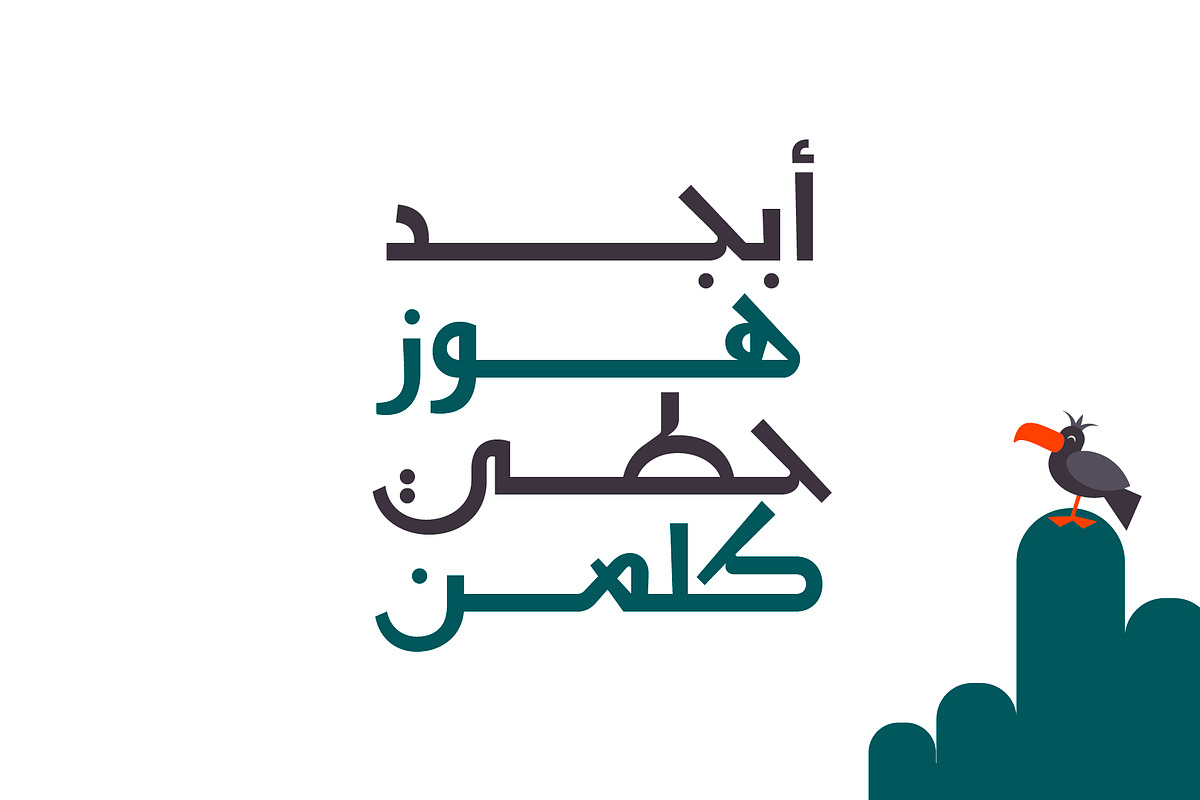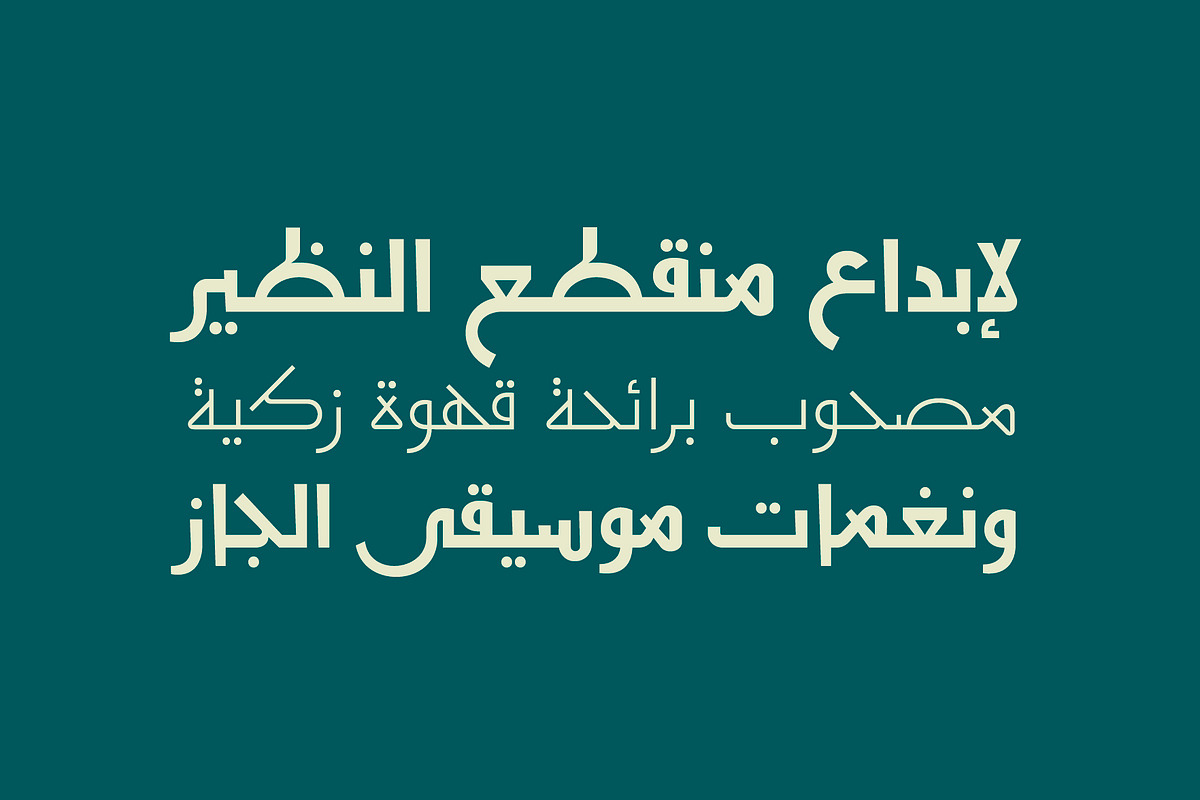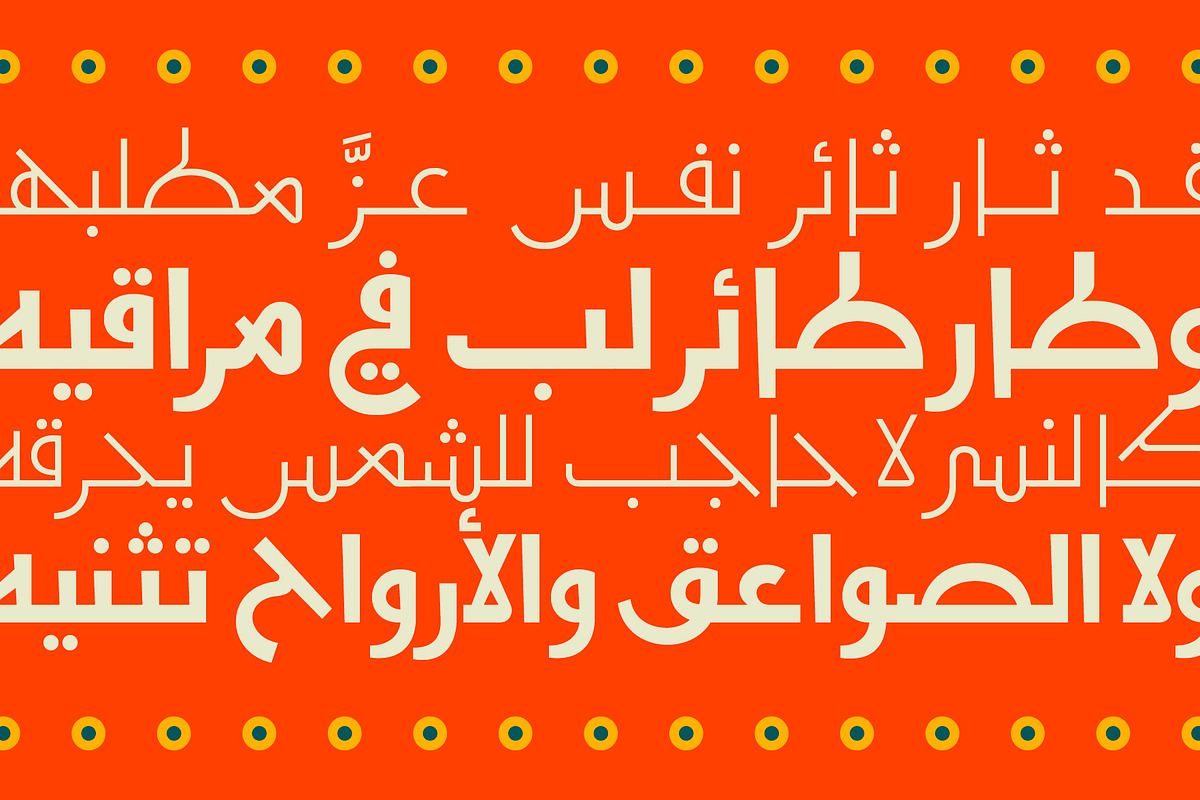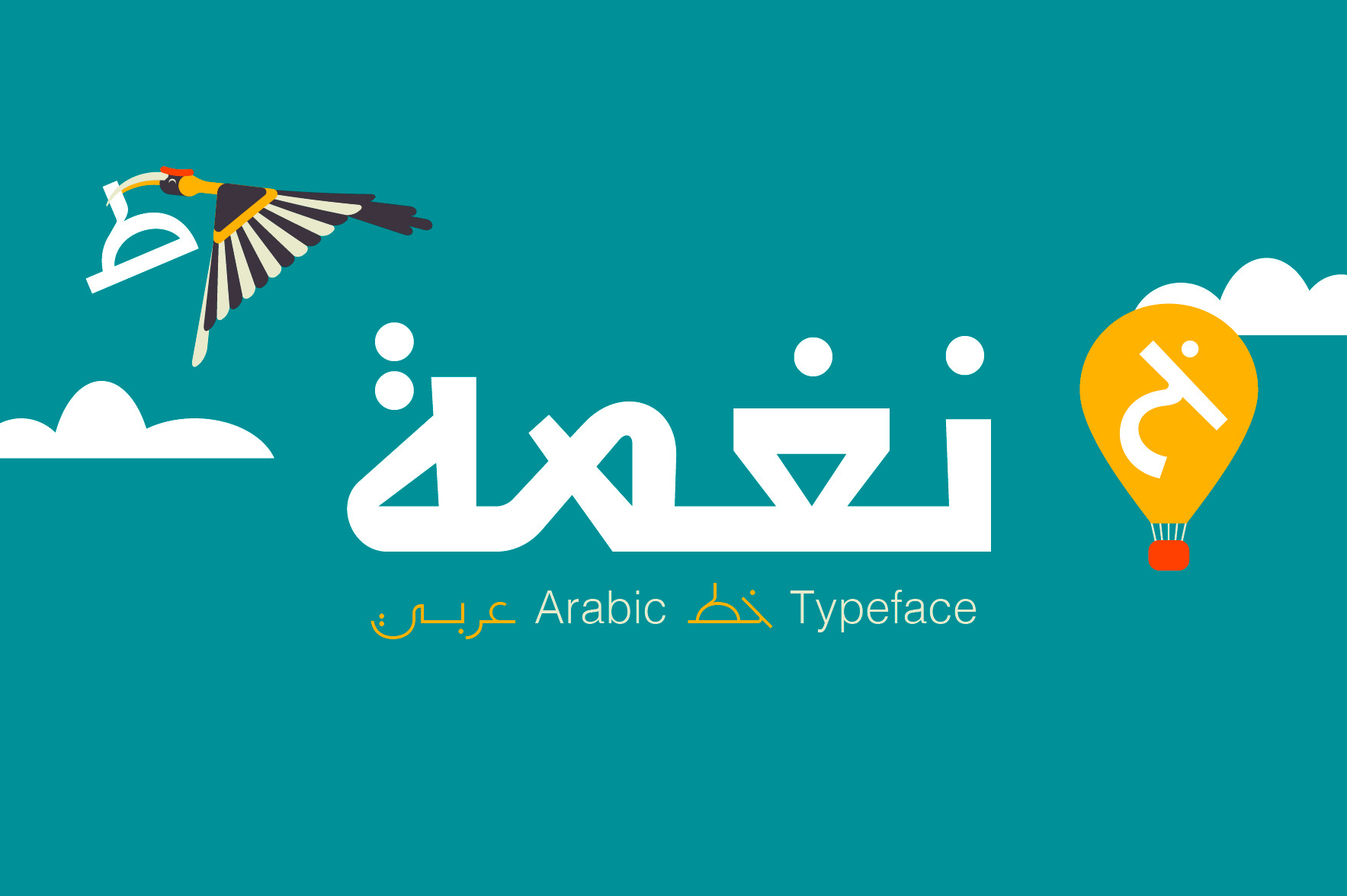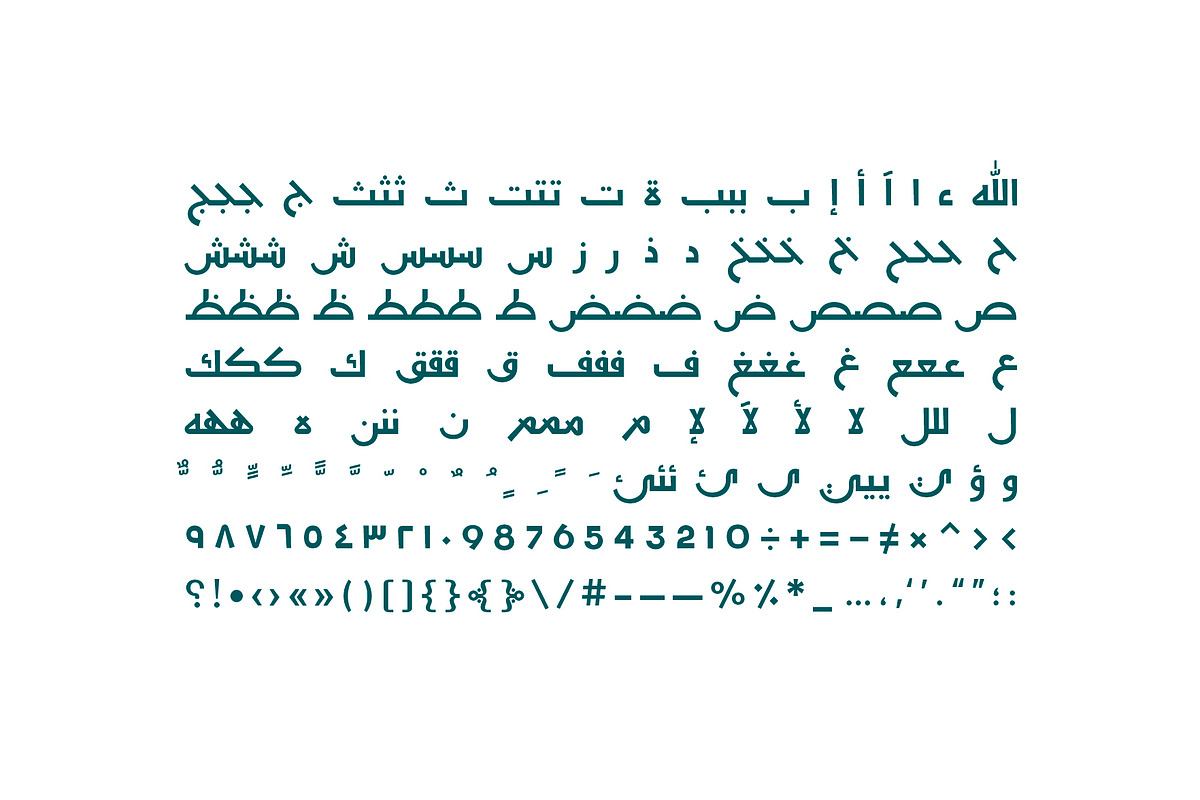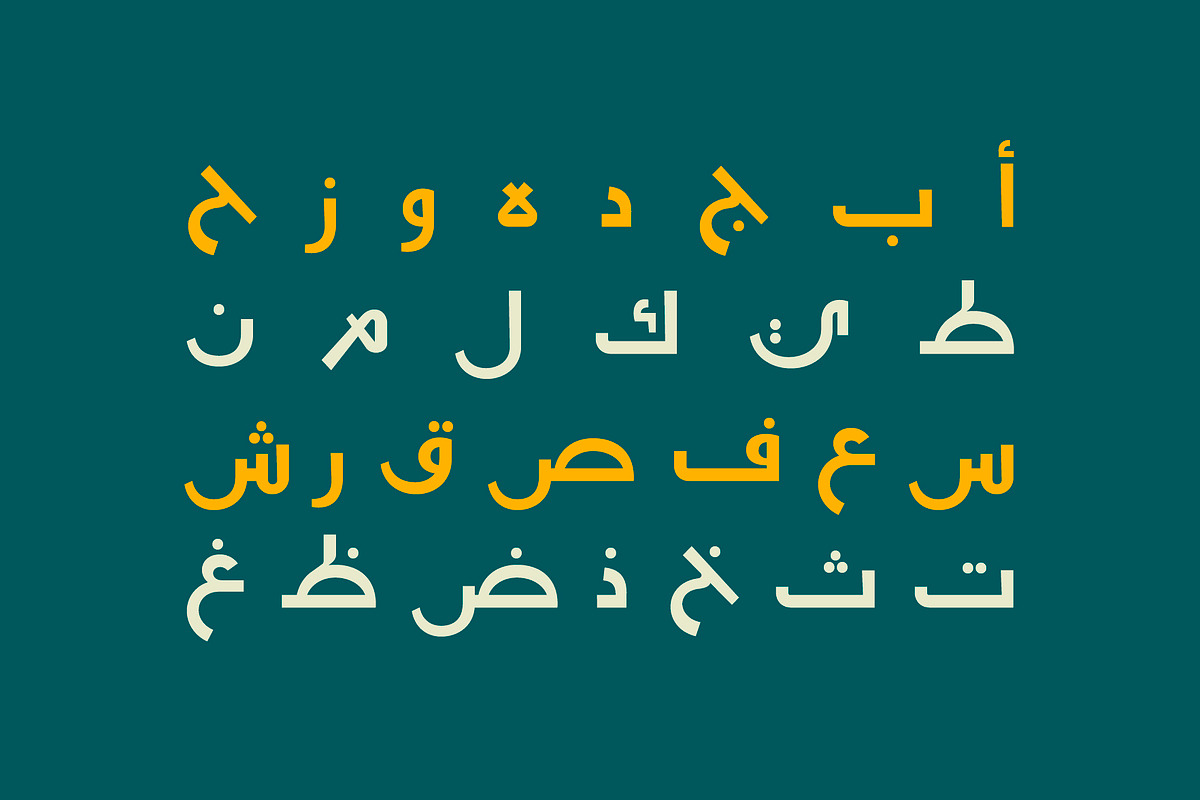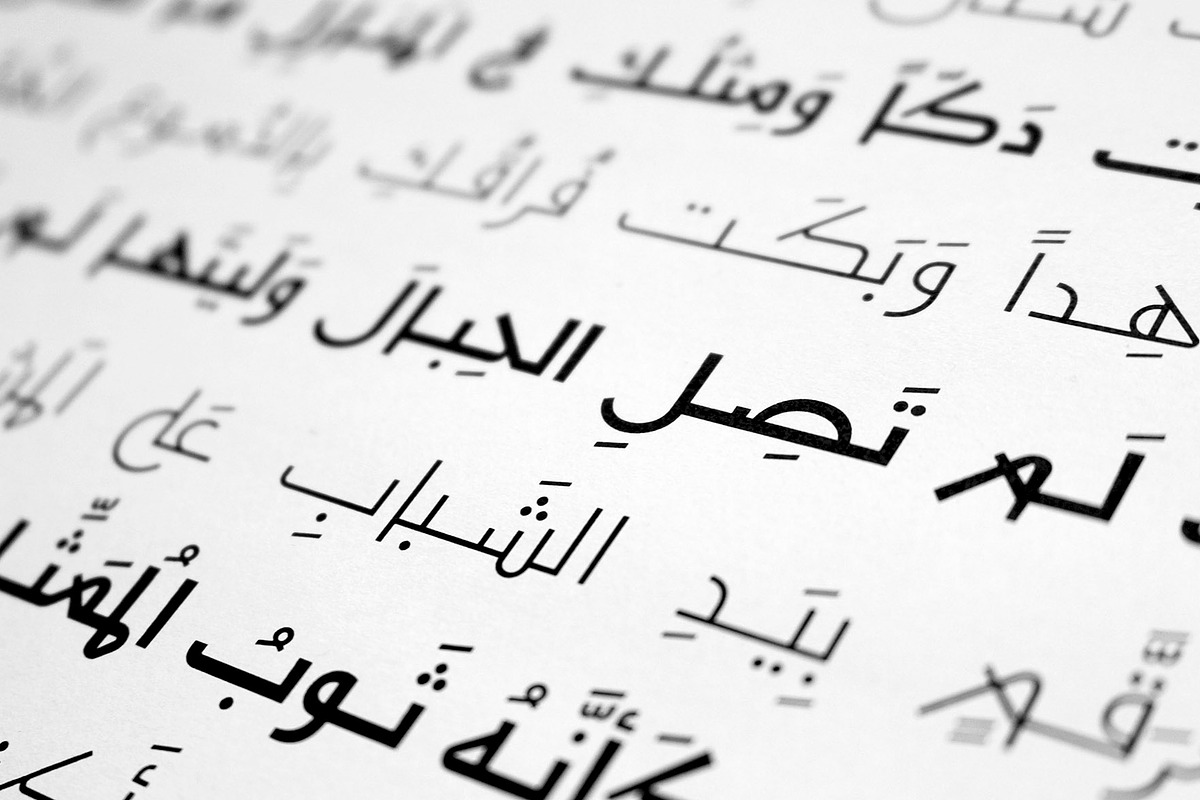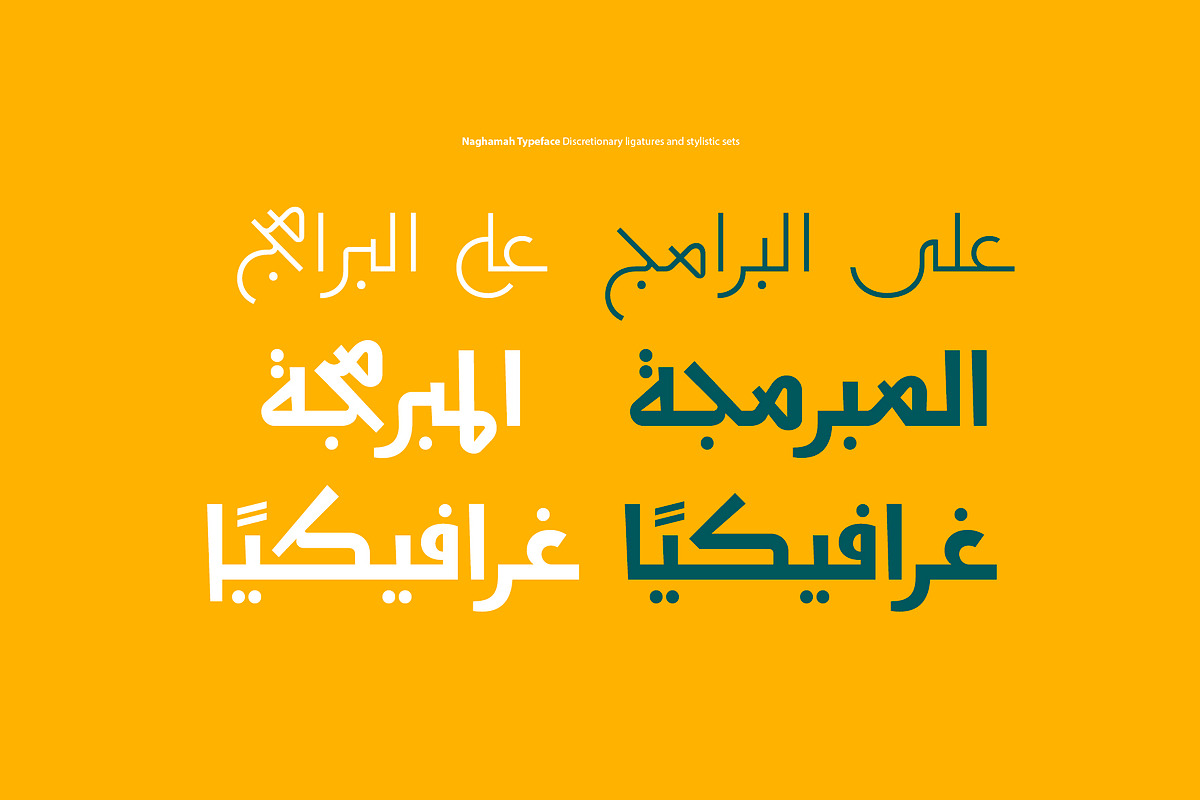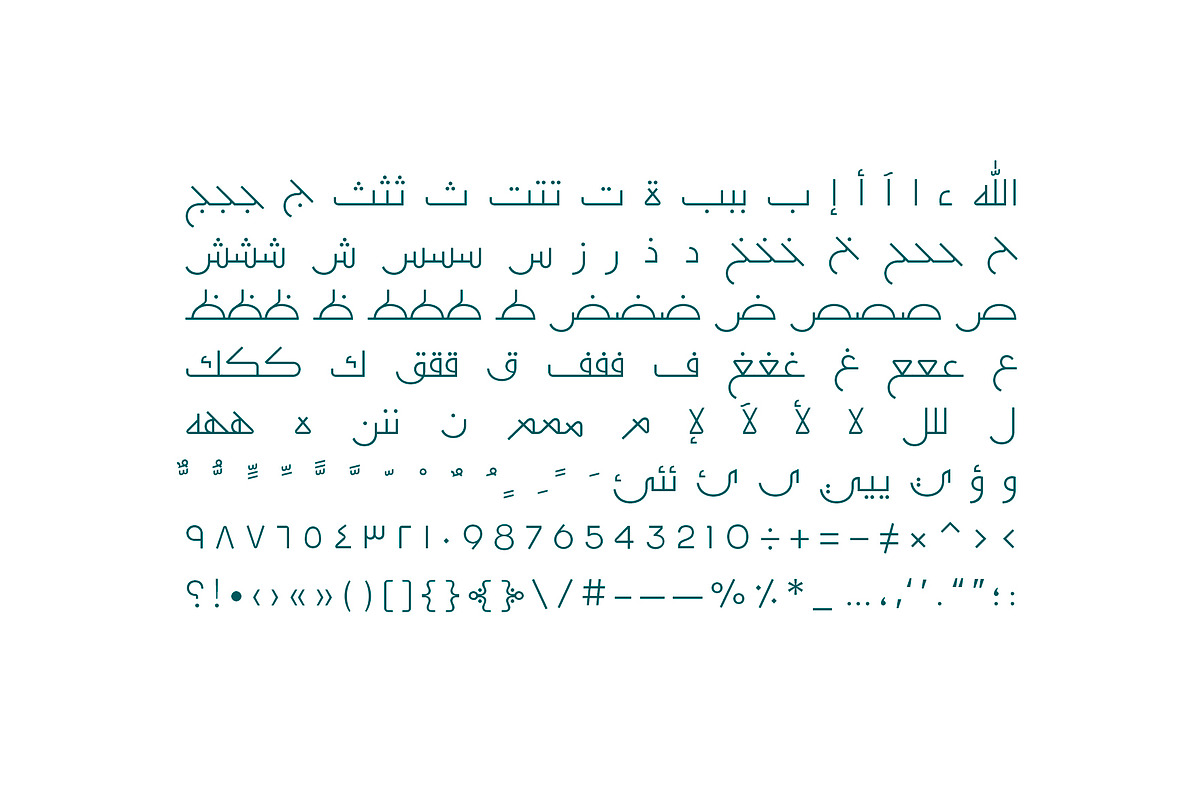
Naghamah – Arabic Typeface
Naghamah, which is the Arabic word for ‘tone’, is an Arabic display font that features active and joyful letterform design. It suits a wide range of creative projects such as branding, infographics and publication design. Naghamah includes two weights (regular and bold) with a stylistic set. It works for web, print and mobile applications.